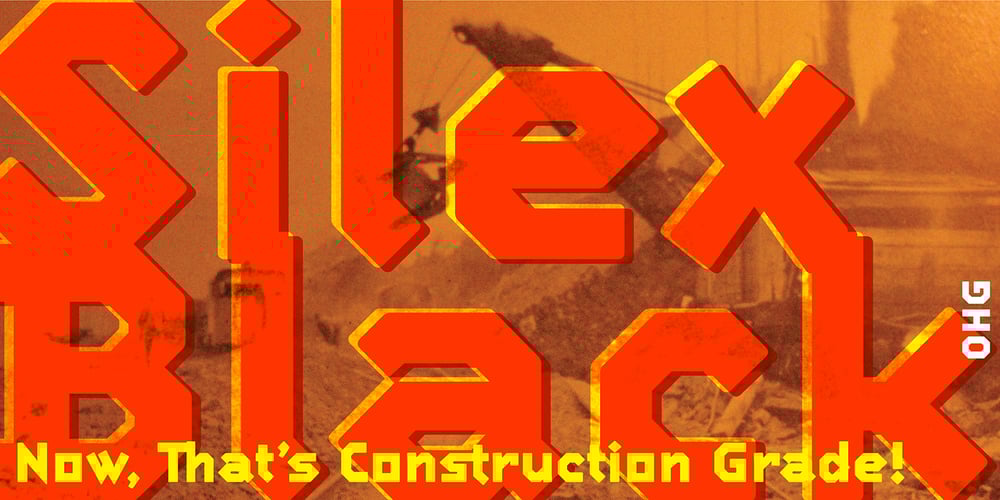
Silex Font Family was designed by Russell A. McGorman and published by Our House Graphics. Silex contains 3 styles and family package options. A different kind of beauty.Silex began life in the labs of R.U.S.S.T Institute a number of years ago, starting with a skeleton of C.A.D./C.A.M system fonts, a disused tungsten carbide blade off an old milling machine for a soul and a little box of OpenType features for brains.This family of 3 solid, Silex is a hard-edged, hard-working display fonts. Suitable for headlines, logos, heavy equipment and… If you are a wrestler or mixed martial arts fighter, your resume.OpenType features include stylistic alternates, discretionarily ligatures, case sensitive glyphs, small caps, dozens of standard and discretionary ligatures.